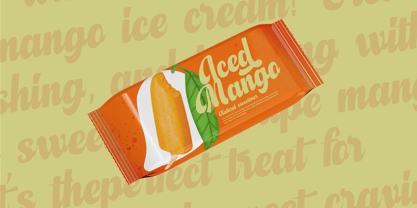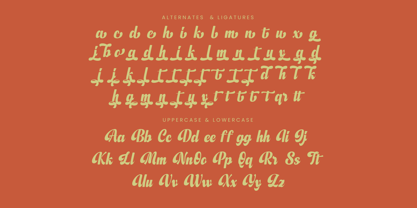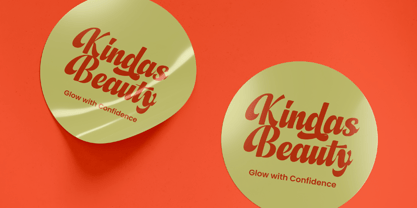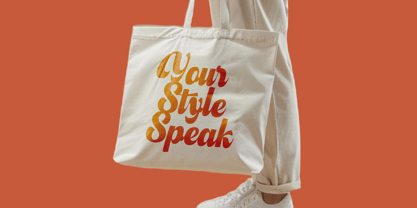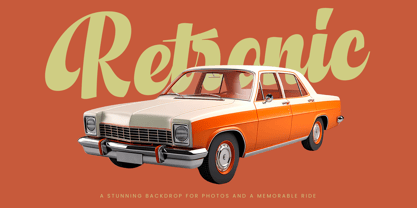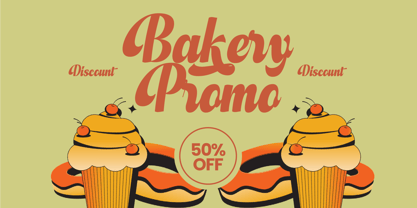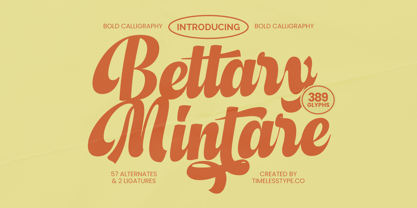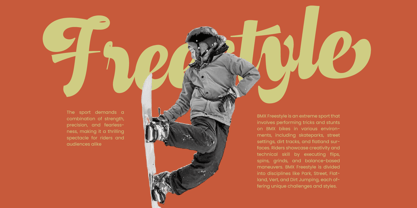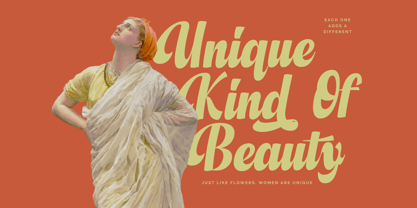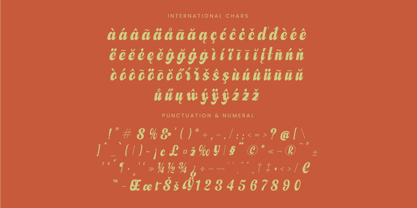
Bettary Mintare
The Bettary Mintare Font Family was designed by Heru Utama Putra and published by Timelesstype Studio. Bettary Mintare contains 2 styles and family package options. More about this family
Bettary Mintare - Bold Calligraphy Font , from Timelesstype, Suitable for any projects such as: logos, branding projects, homeware designs, product packaging, mugs, quotes, posters, shopping bags, t-shirts, book covers, name card, invitation cards, greeting cards, label, photography, watermark, special events, and all your other luxury and beautiful projects that need a Luxury Serif taste.